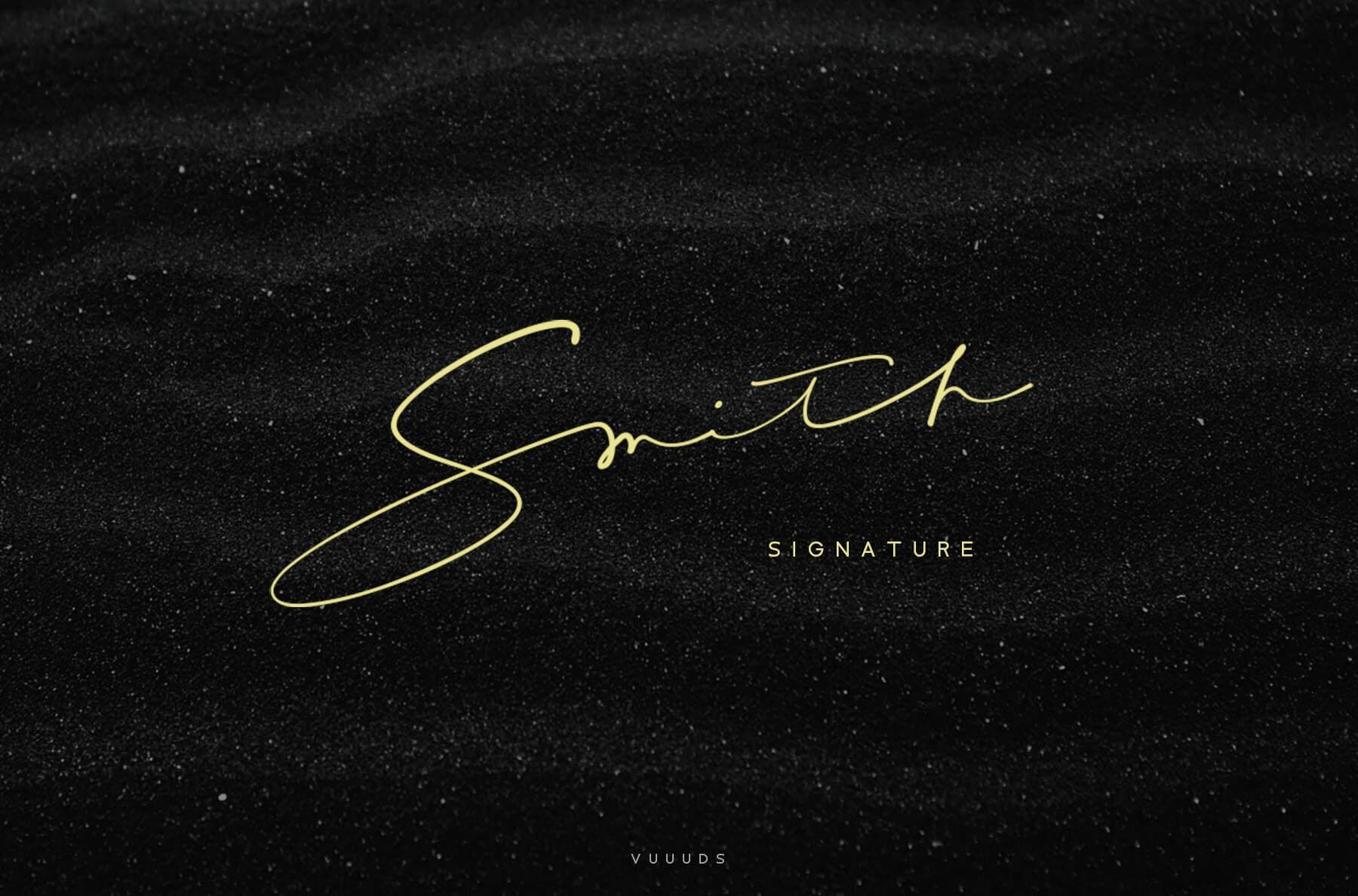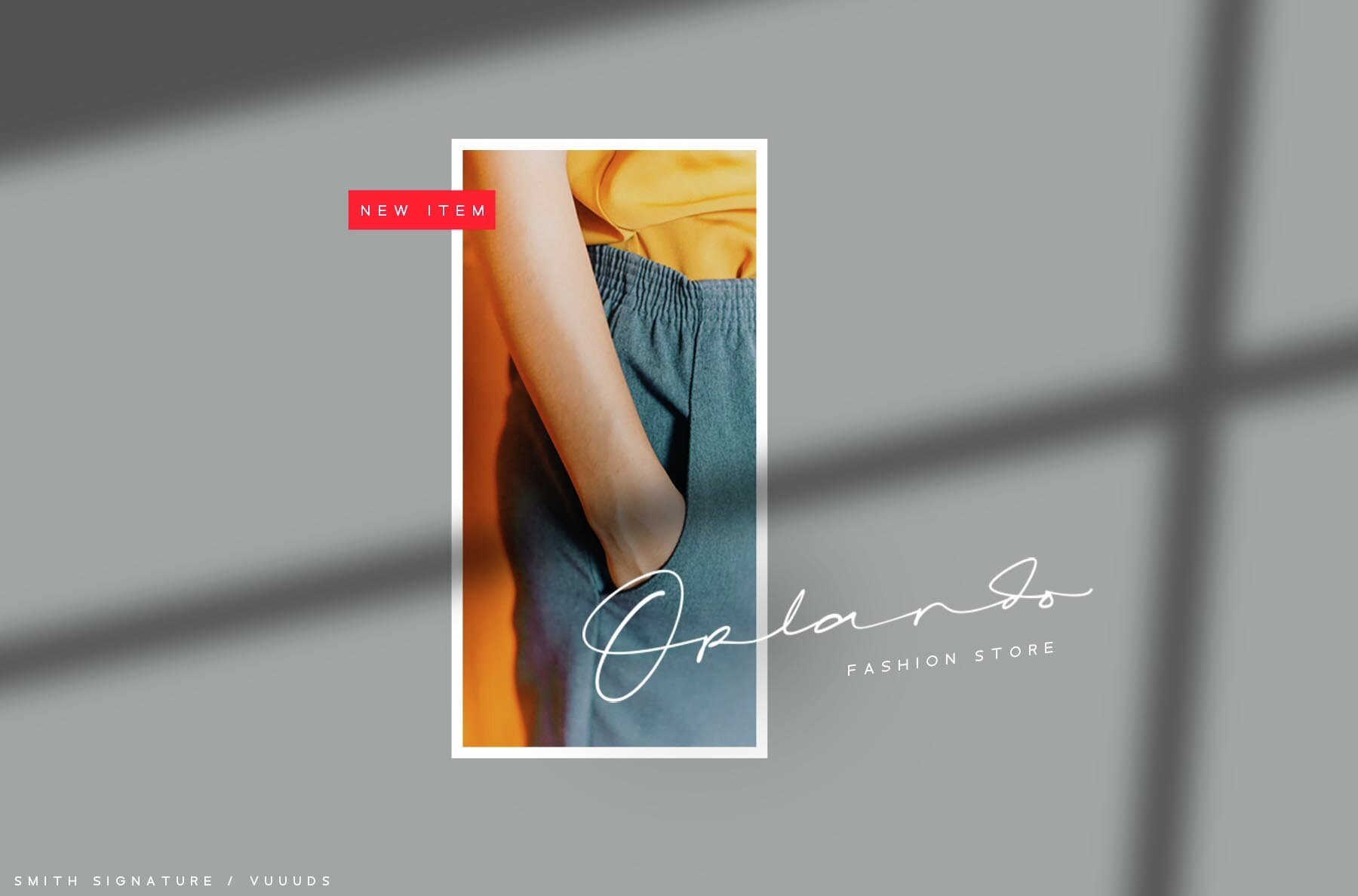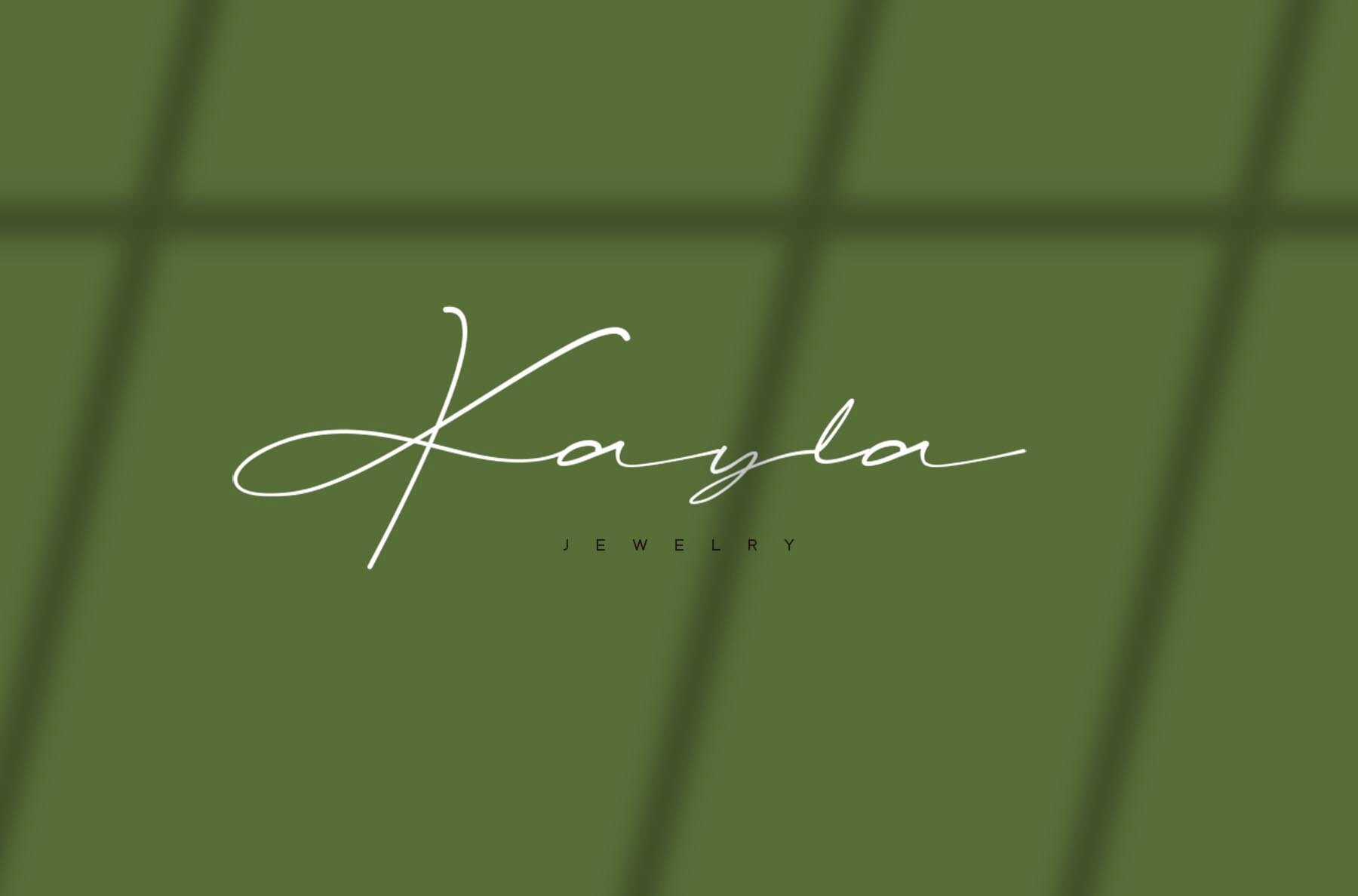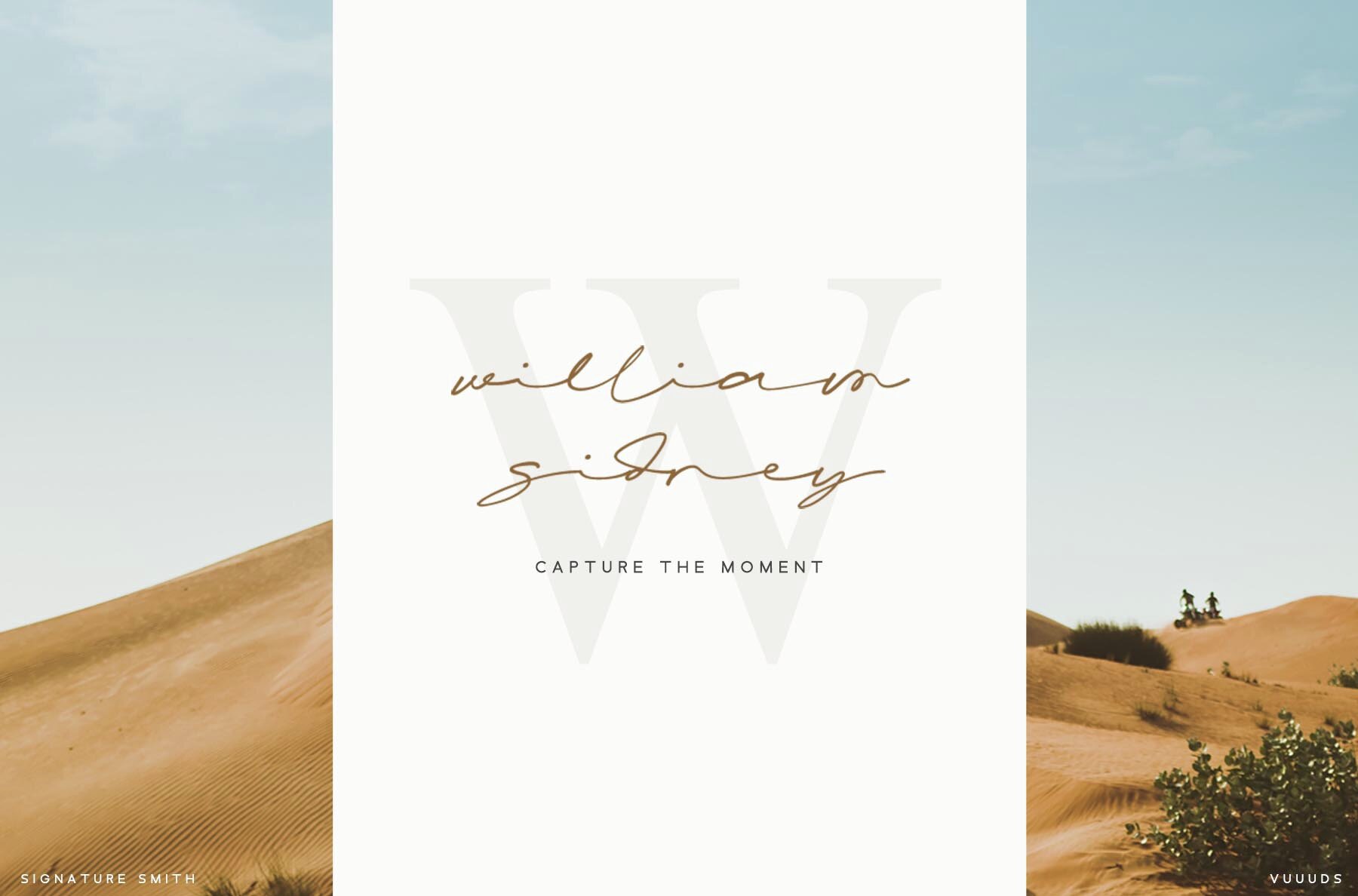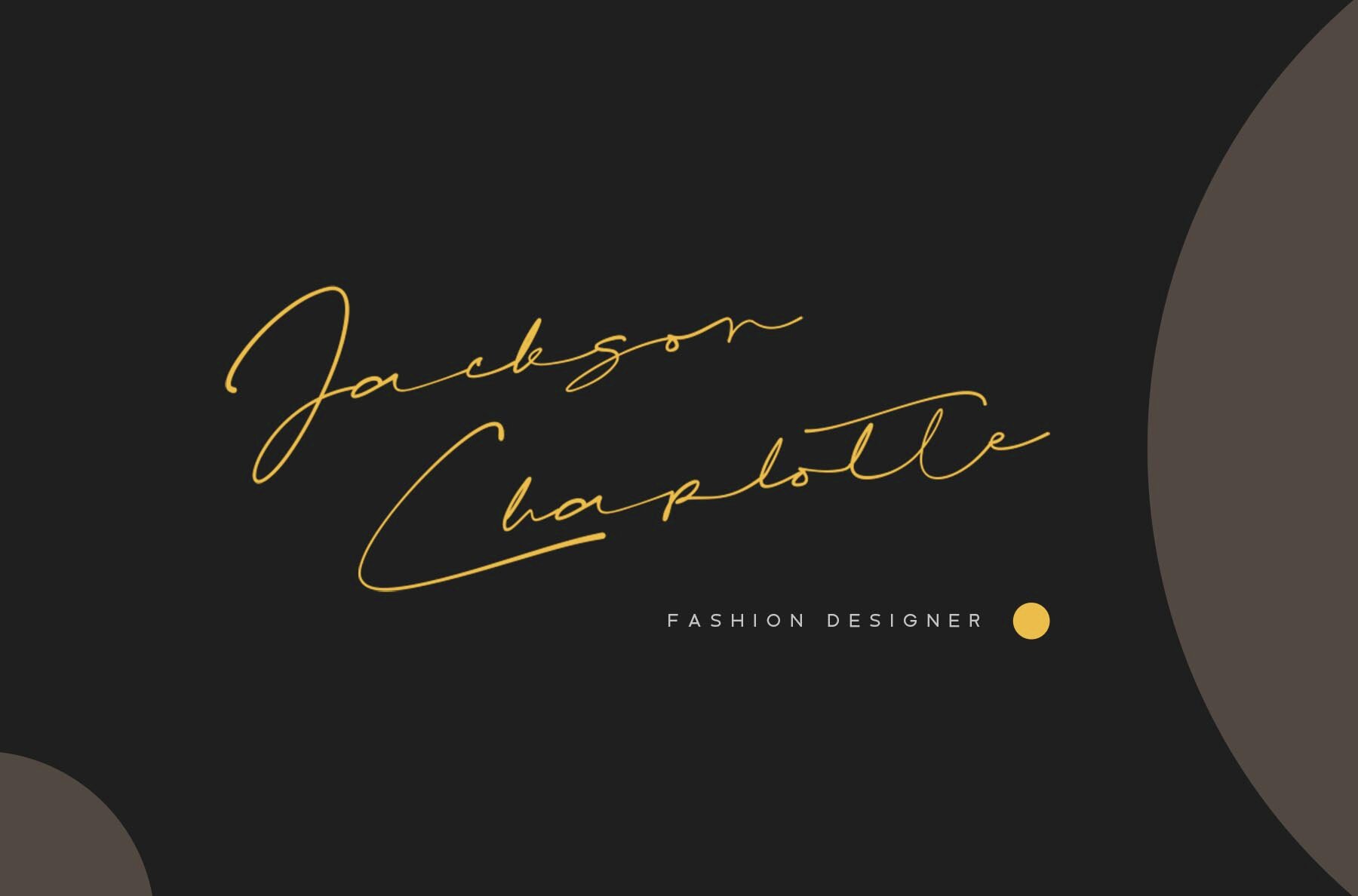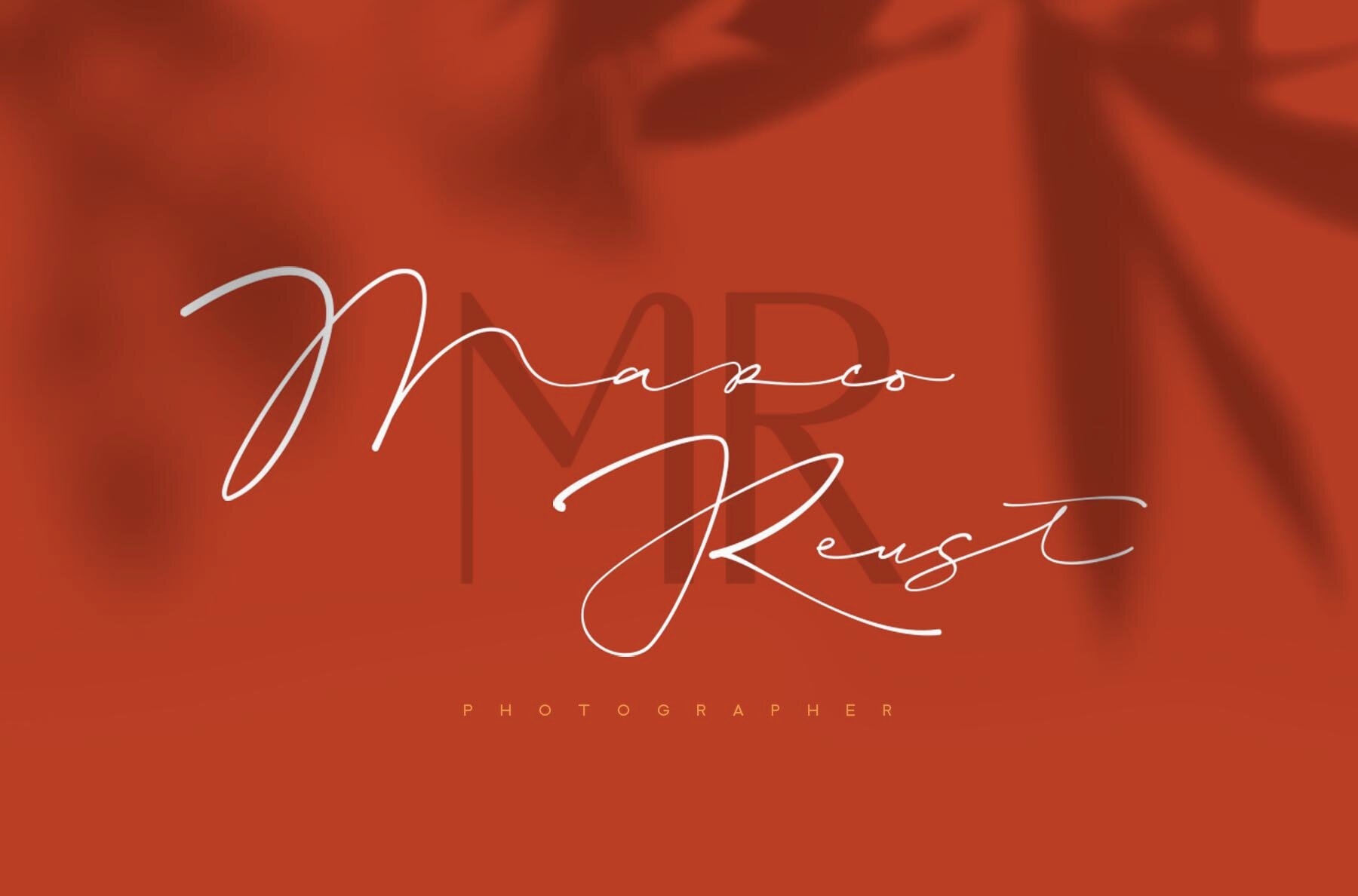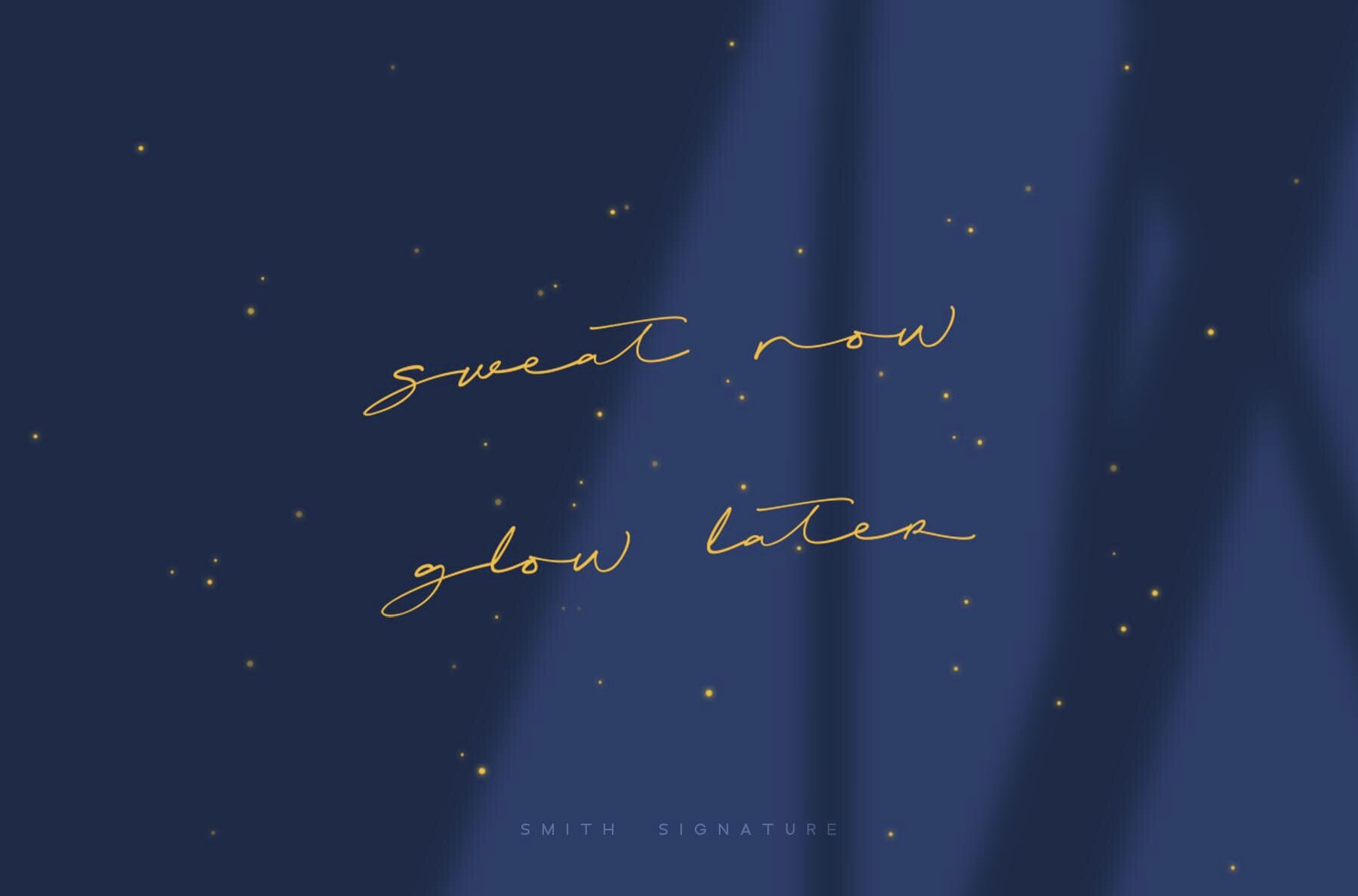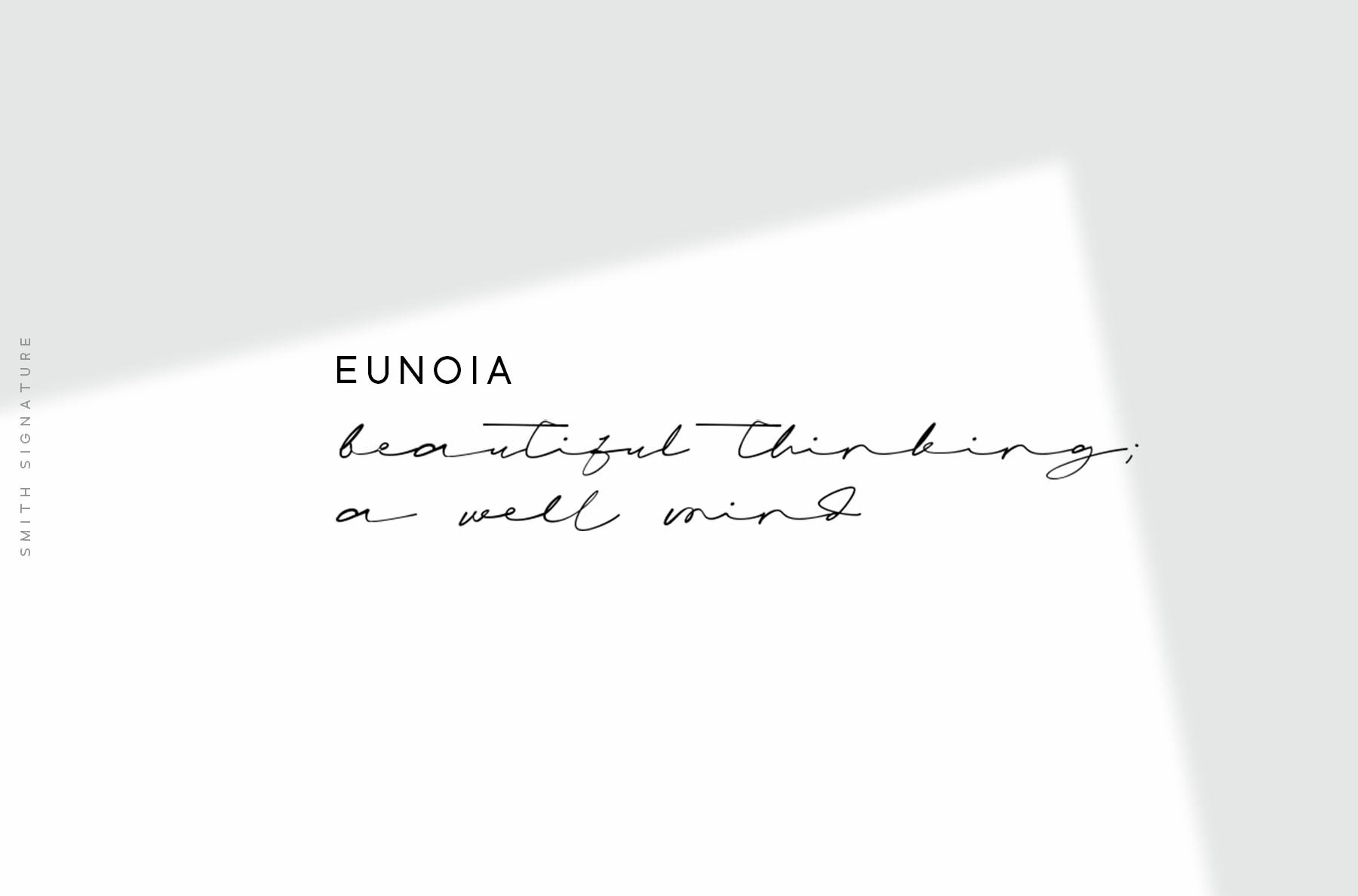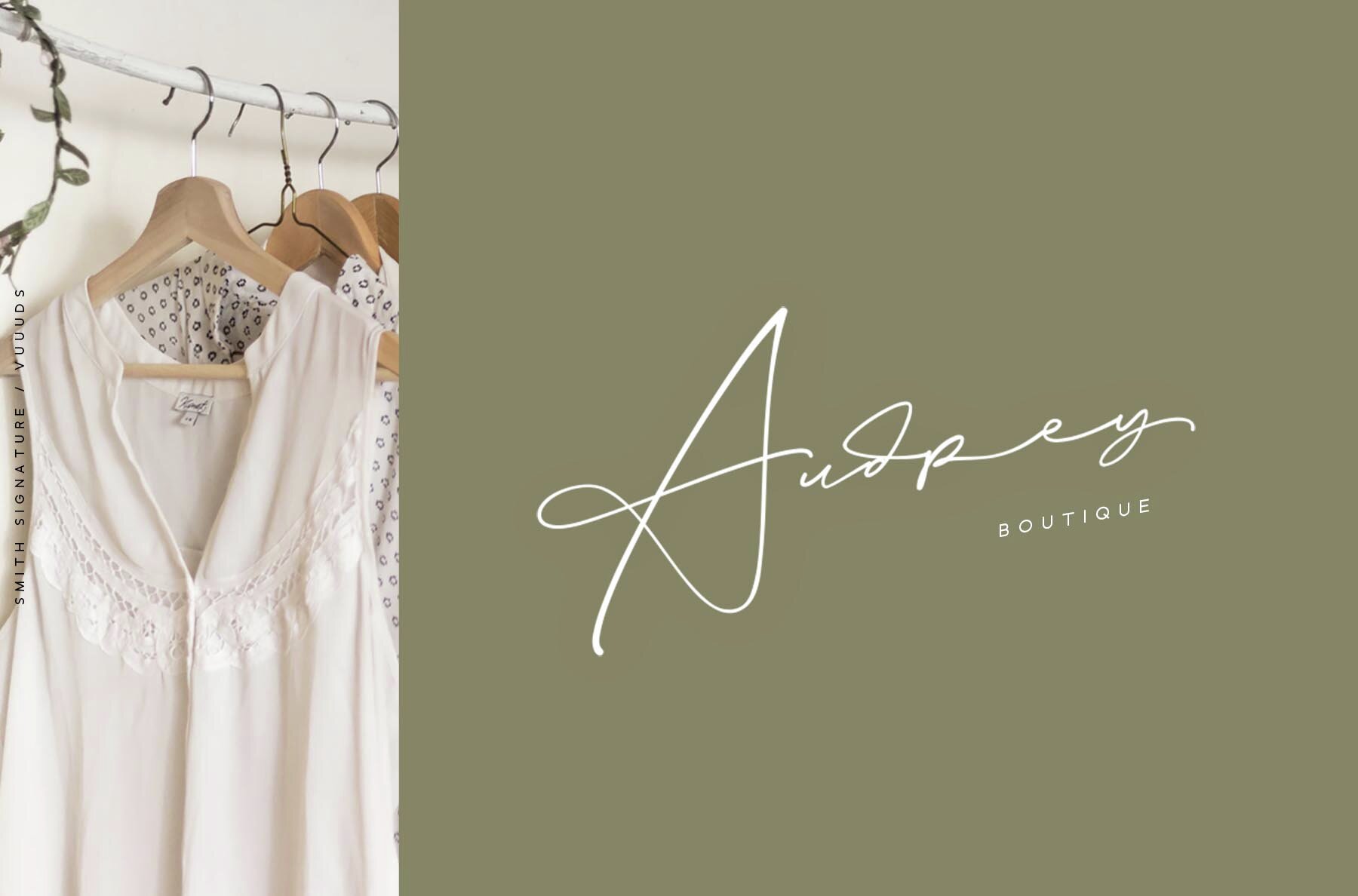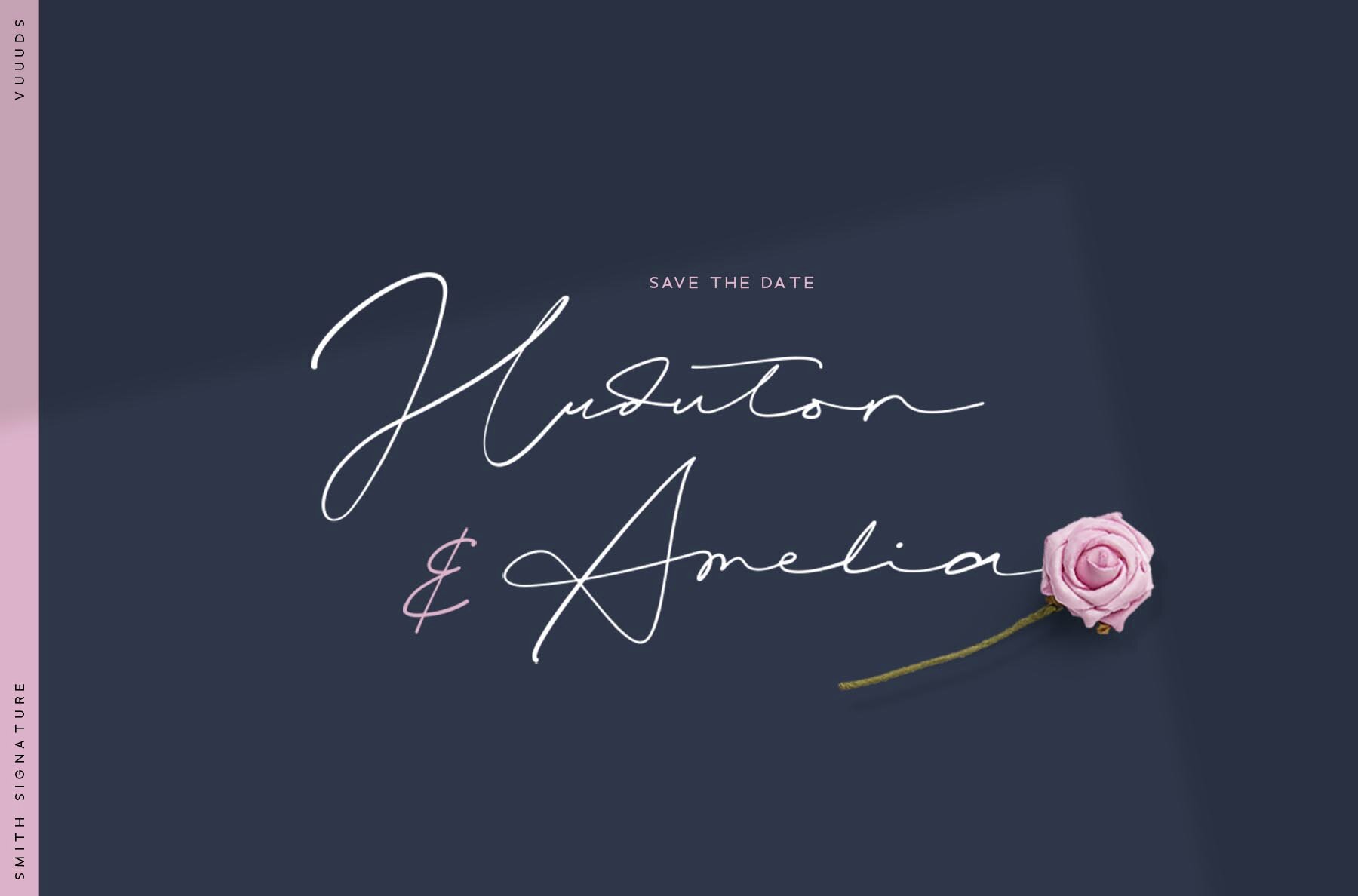
Smith Signature Font
Smith Signature
The Smith Signature Font offers a contemporary take on signature script design, showcasing uniquely crafted letters that add a personal touch to any project. Users can easily access the alternate glyphs through Font Book for Mac or Windows Character Map. A tutorial link for accessing these features is provided within the zip file.Smith Signature: A Modern Script Font